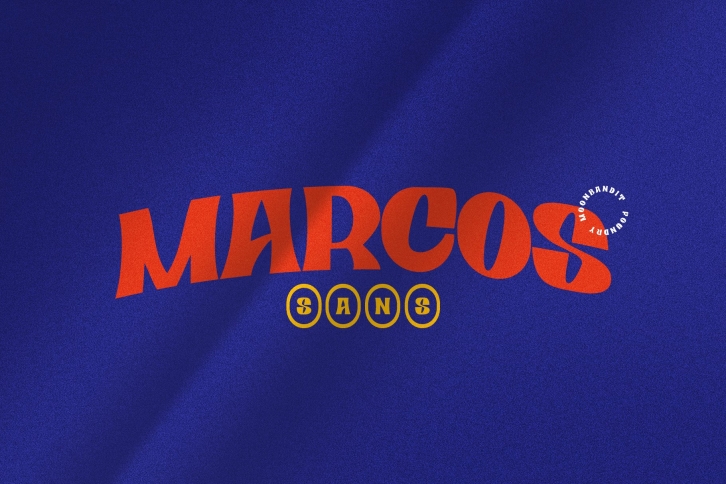
Marcos-playful vintage typeface is a beautiful font that was designed by MoonBandit. It's a great choice for designers and creatives who need such a font. It was released on September 22, 2020 and the file size is 9.16 MB. Marcos-playful vintage typeface may give a more youthful, expressive and casual look to your project. It is a very beautiful, refined, elegant, and high-quality font.